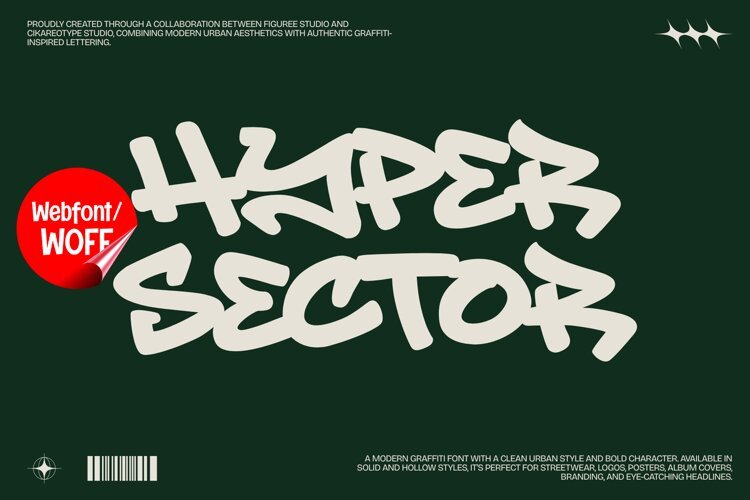
Hyper Sector Webfont Modern Graffiti Display Font
Bring an authentic urban and graffiti-inspired personality to your digital projects with Hyper Sector Webfont, a modern display typeface featuring expressive hand-drawn strokes, fluid curves, and bold street-art energy.
Inspired by contemporary graffiti and urban culture, Hyper Sector combines a clean visual structure with an unmistakably handcrafted character. Its dynamic lettering makes it especially effective for website headlines, landing pages, streetwear stores, music websites, creative portfolios, digital campaigns, event pages, gaming projects, and modern brand identities.
Hyper Sector includes Solid and Hollow styles, giving designers multiple ways to create distinctive digital typography. Use the Solid style for strong and confident headlines, or introduce the Hollow style for a lighter outlined treatment. The two styles can also be combined to create layered visual effects and more experimental compositions.
Designed primarily as a display typeface, Hyper Sector works best for large titles, hero sections, promotional banners, product names, campaign graphics, and other prominent web typography. Its graffiti-inspired appearance can help streetwear and creative brands establish a recognizable visual identity online.
Use Hyper Sector for urban fashion brands, graffiti-inspired websites, music releases, album promotions, skate brands, online stores, creative agencies, event promotions, digital posters, and social media campaigns.